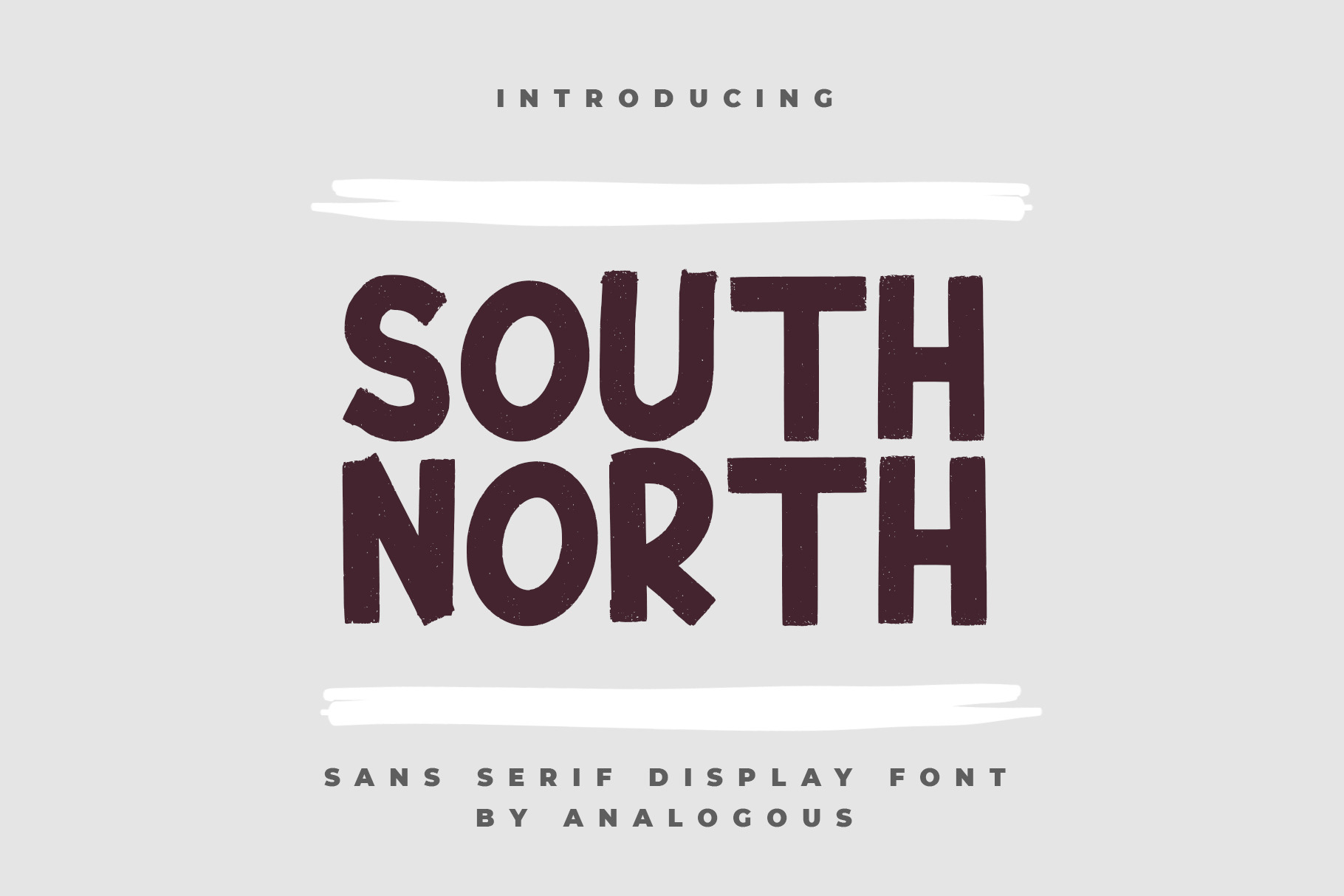
SOUTH NORTH || Display Font
Introducing SOUTH NORTH || Display Font
SOUTH NORTH is a sans serif display font; delivering a stylish character with authentic brush which is guaranteed to add an eye-catching appeal to your logo designs, brand imagery, quotes, product packaging, merchandise & social media posts.
All Caps letters